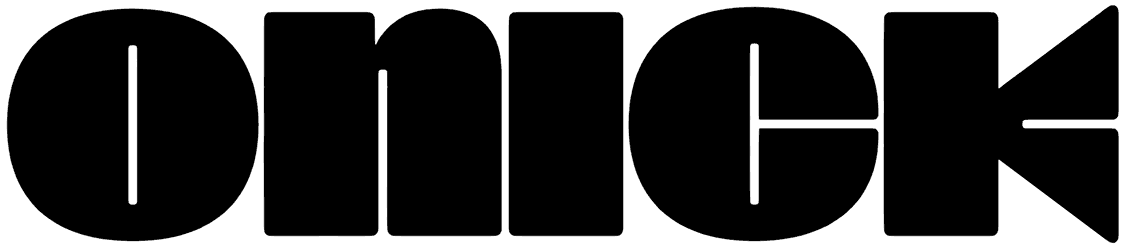
Onick Font
Among the heavy fonts available to you, the Onick font is around the corner. With this block font, you can display speed and power in your ads to the maximum extent.
This thick font can create many things, including designing bags, sports shoes, magazines, typography, and street art projects. The Onick font is an excellent option for those who wish to start their design careers with a stylish, futuristic font.
Onick is a free font designed for Onitsuka Tiger.